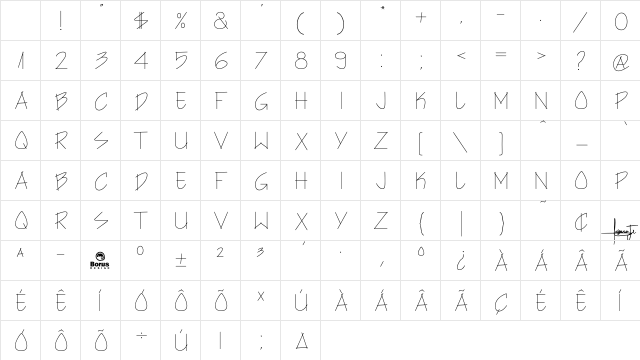
Complete Architect's Hand Regular glyph index. Displaying only characters natively supported by Architect's Hand Regular font.
Architect's Hand flows with the natural rhythm of handwritten lettering, making it ideal for designs that call for warmth and personal expression.
Font Pairing: Combine Architect's Hand with a simple geometric sans for maximum contrast - the tension between flowing curves and clean structure is a classic typographic pairing.
Pro Tip: Use Architect's Hand for short runs of text - names, titles, or taglines. Extended body copy in script faces tires the eye quickly.